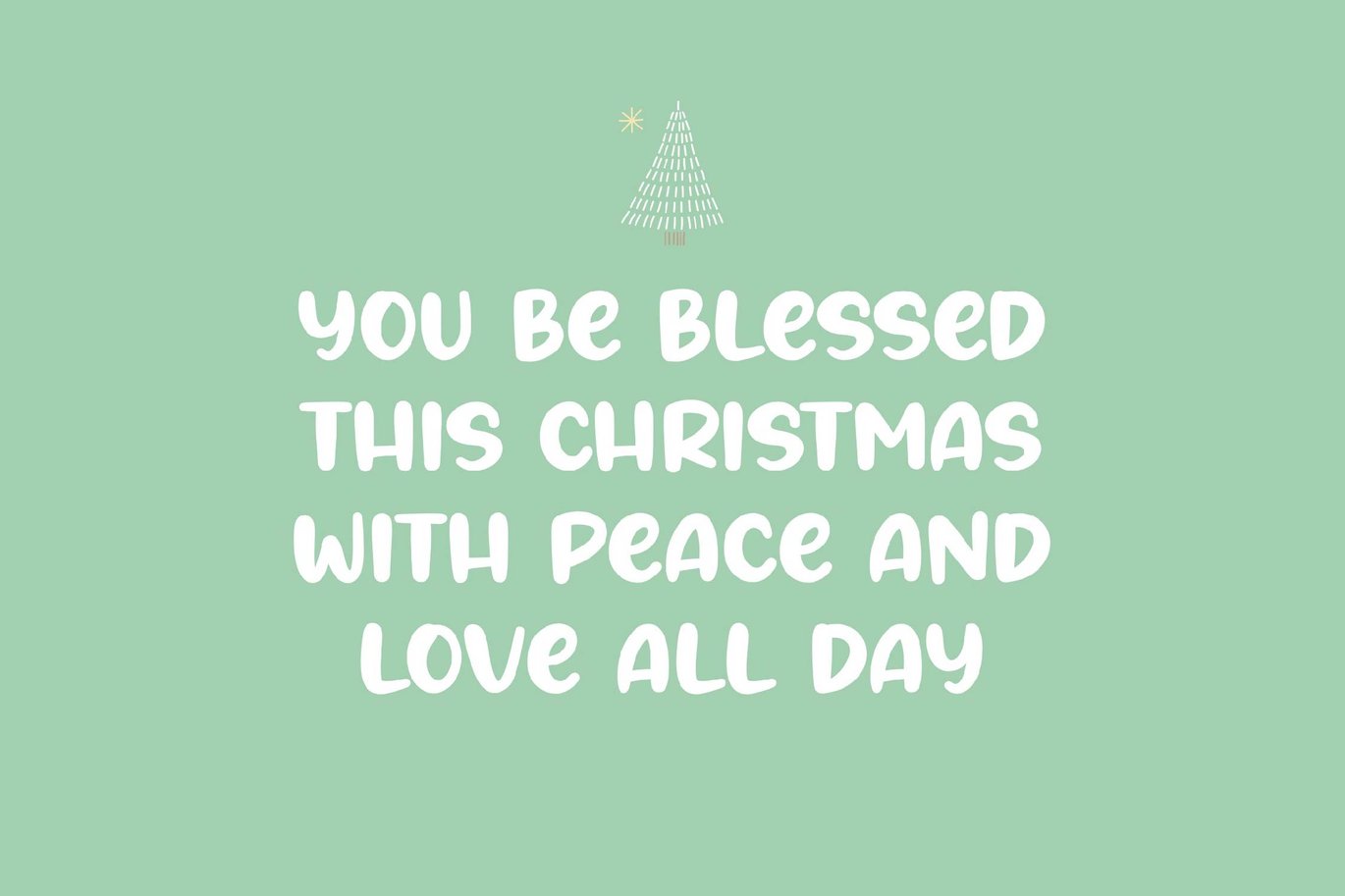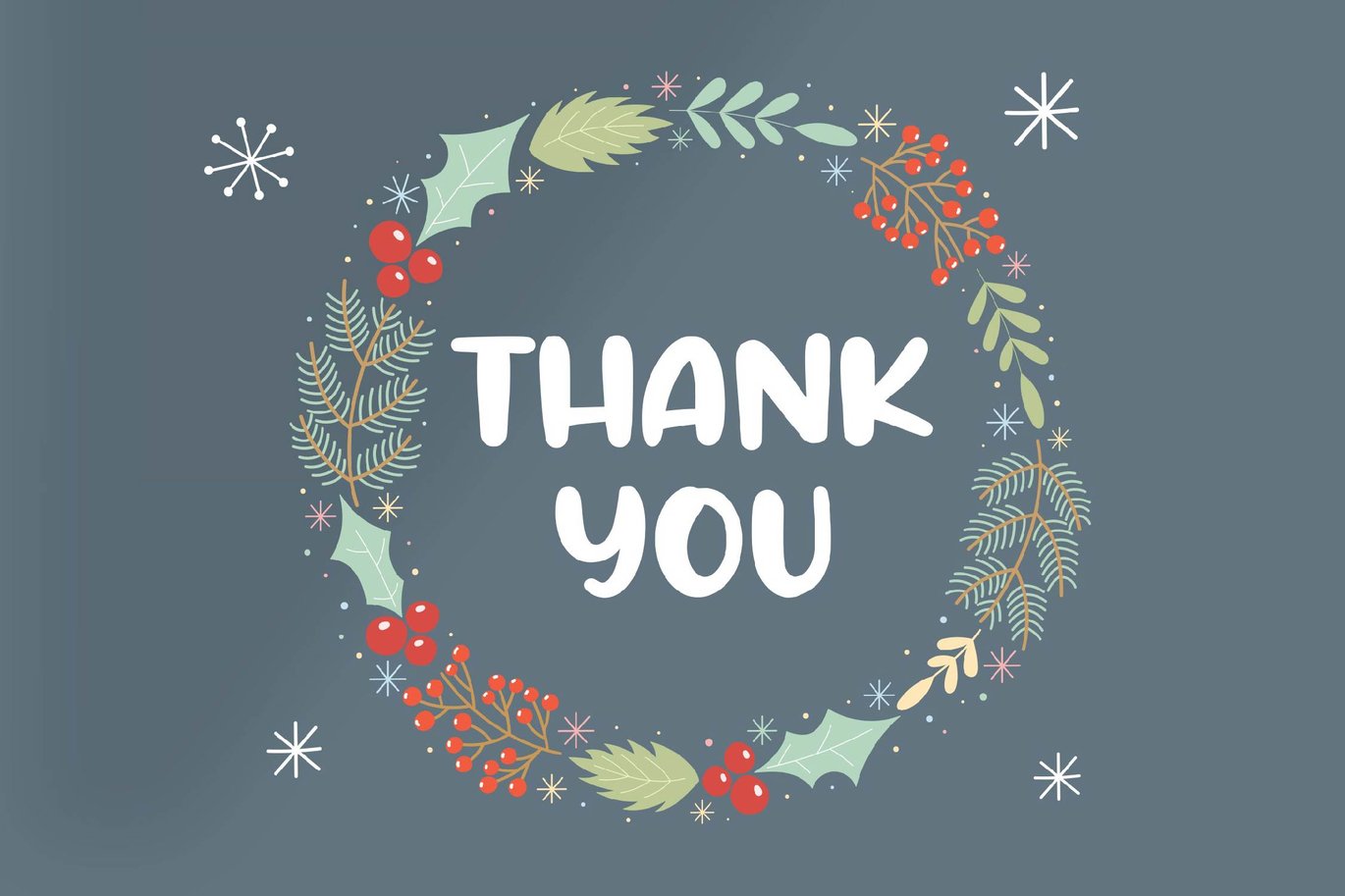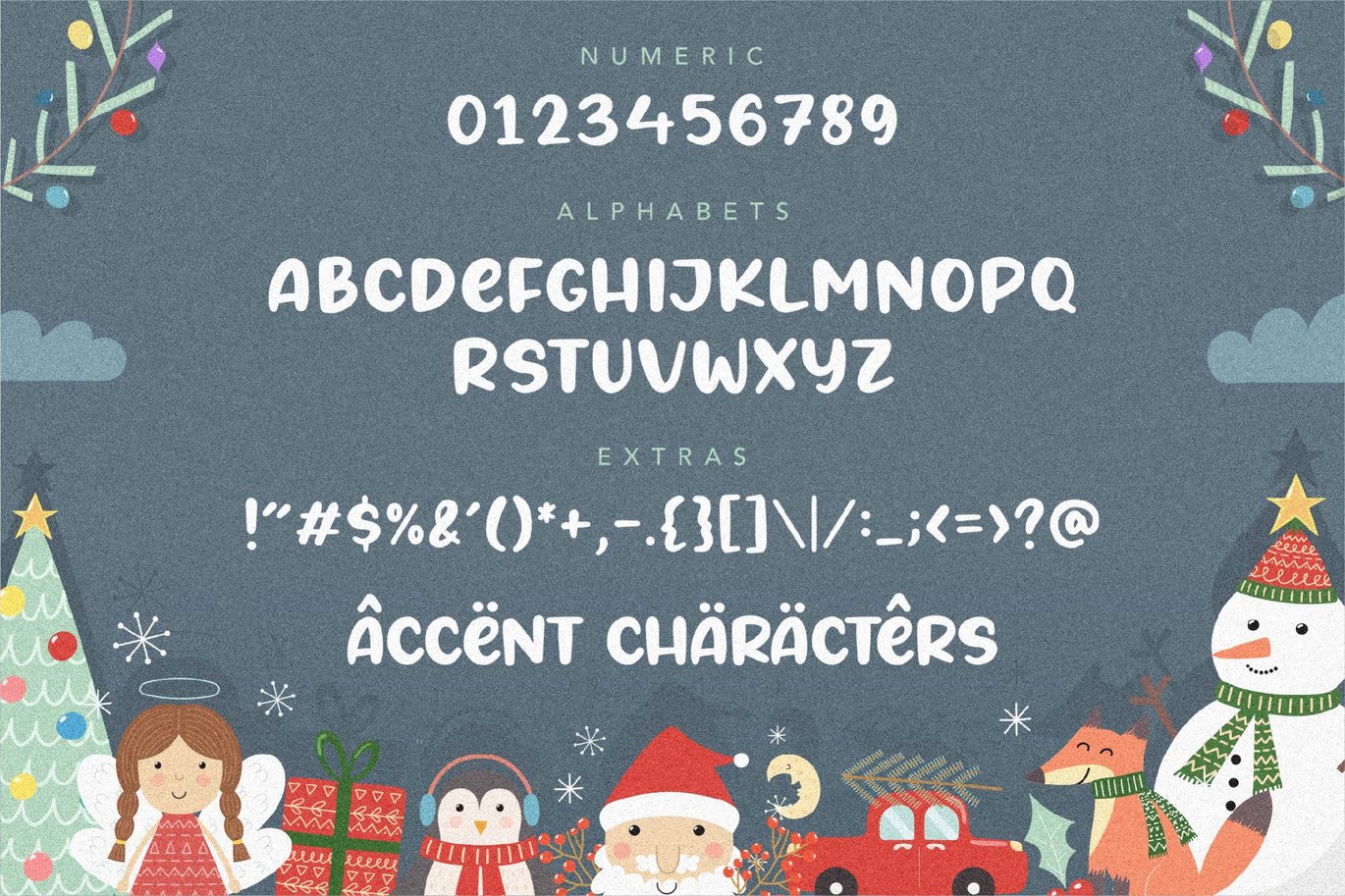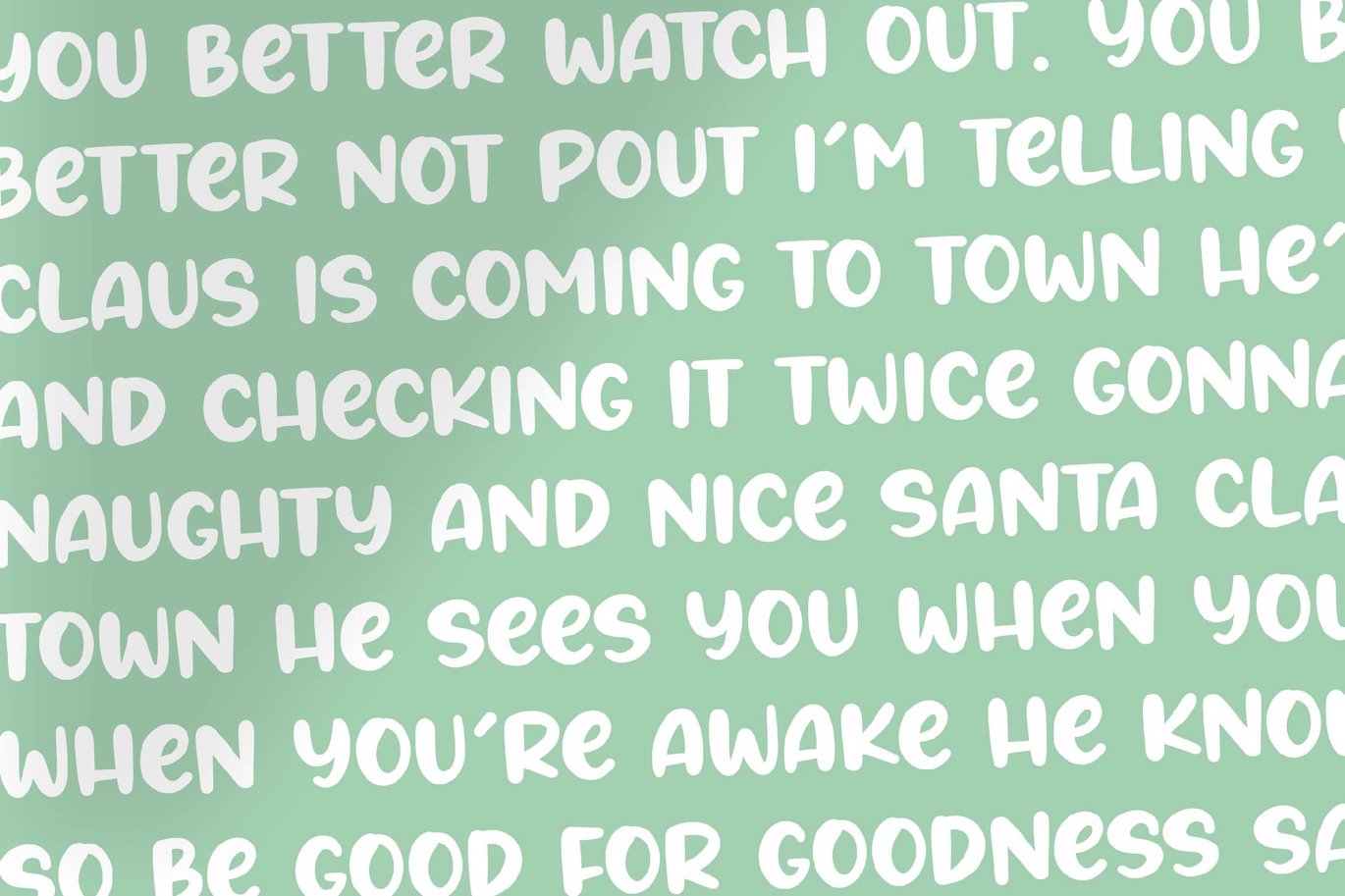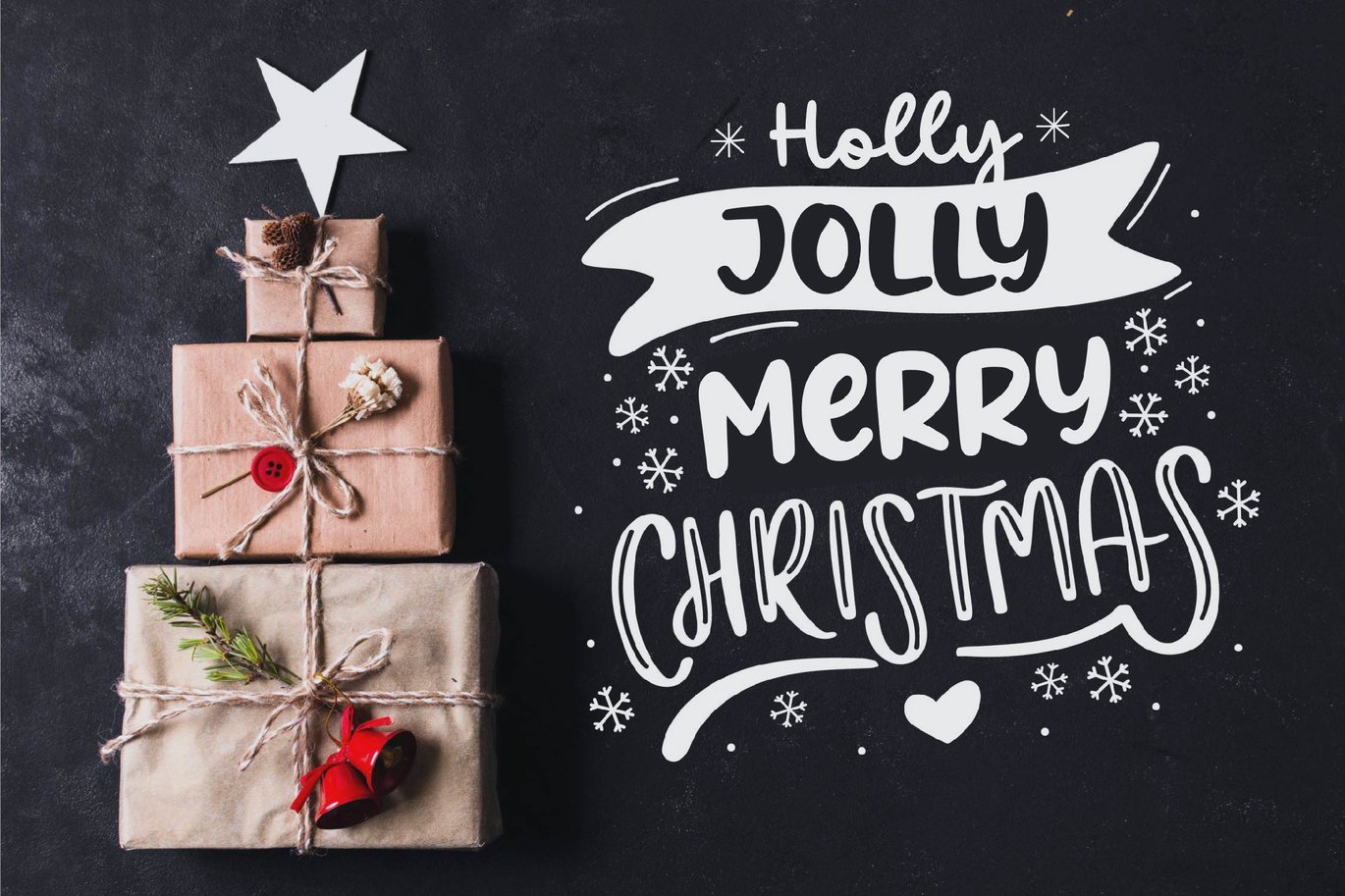
Angels Cookie – A Handbrushed Logo Font
Introducing by Balpirick Studio.
Angels Cookies Modern Fat Handbrushed Font.
Whether you’re using it for crafts, digital design, presentations, or making greeting cards, this font has the potential to become your favorite go-to font, no matter the occasion!
This font only has allcaps letters.